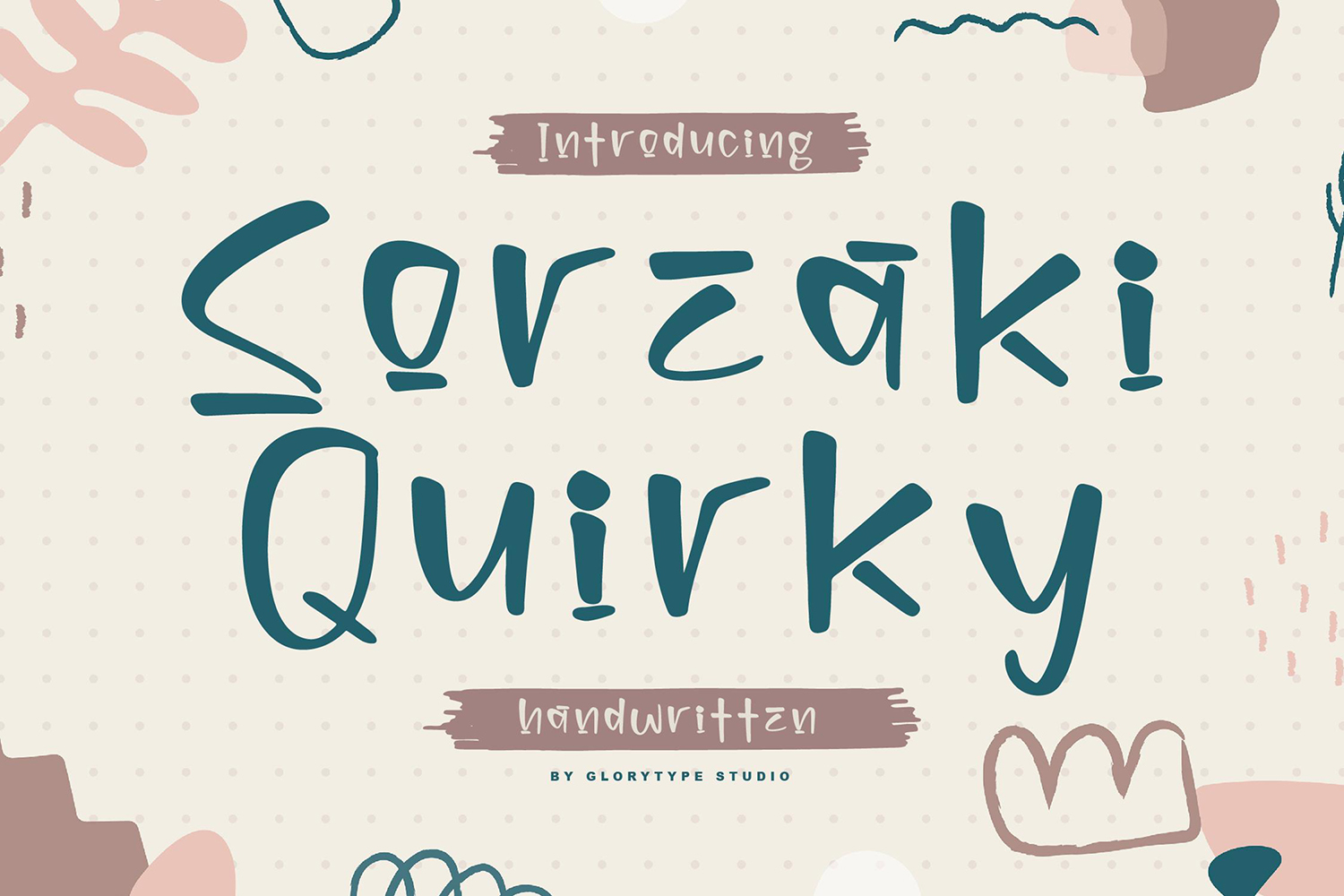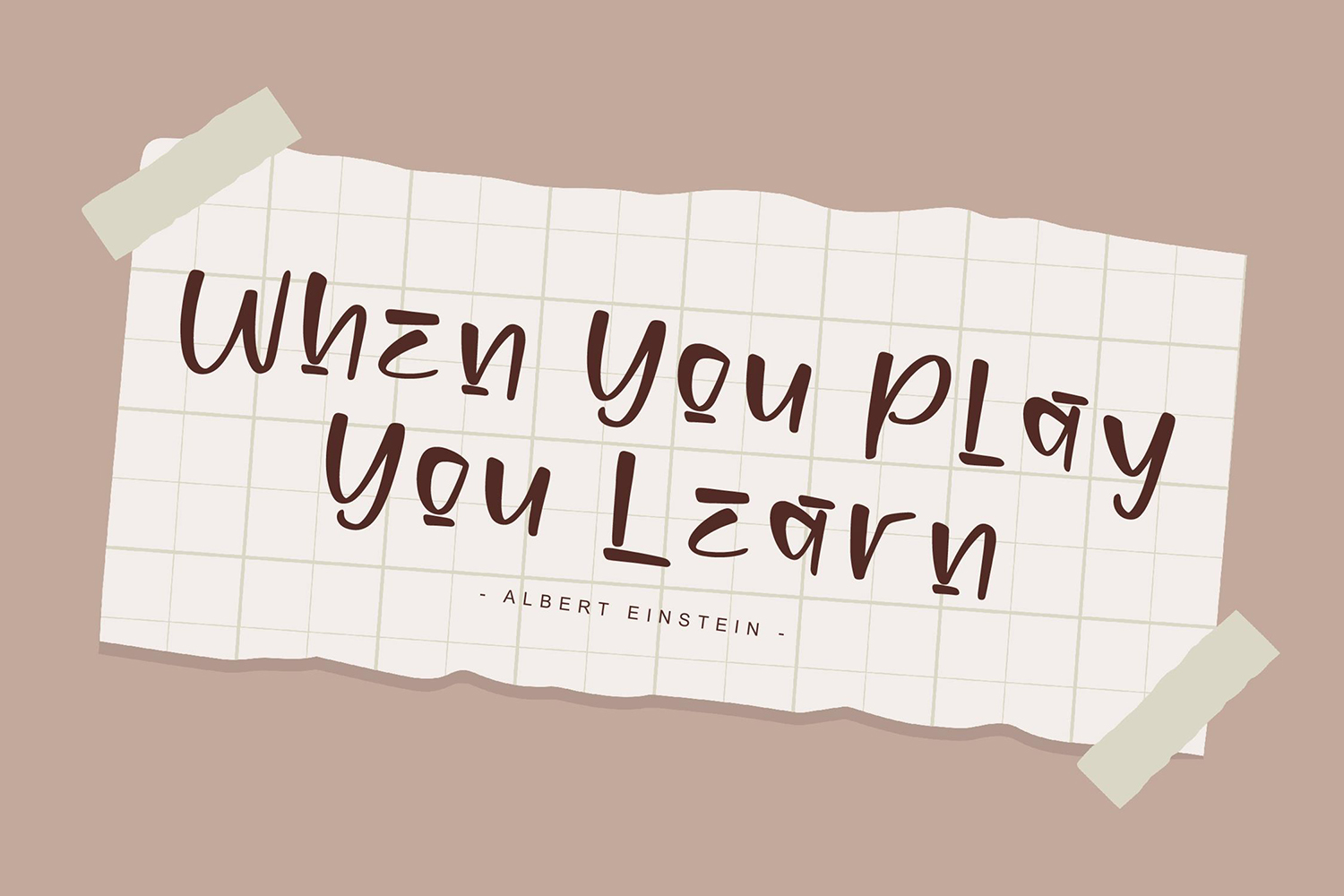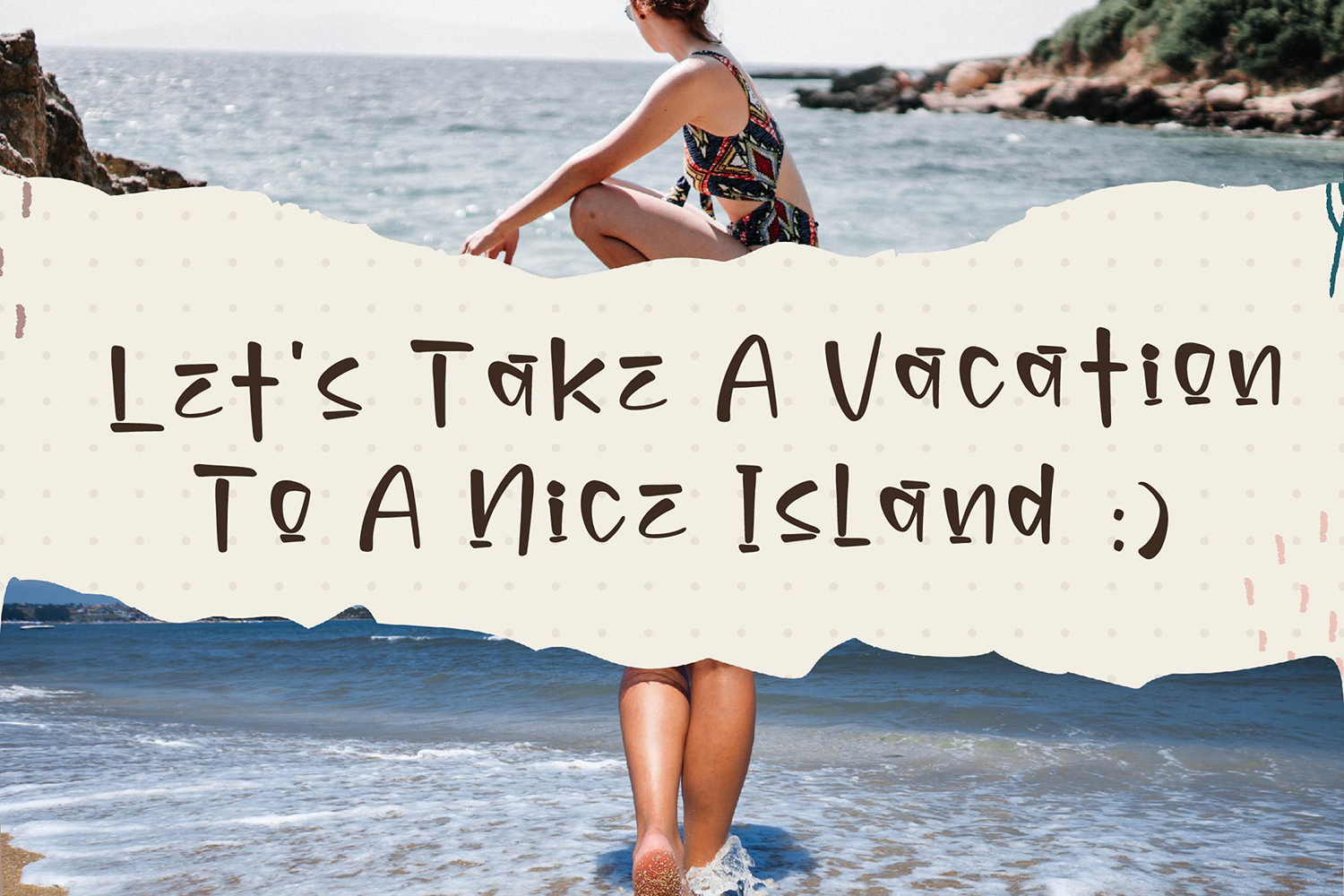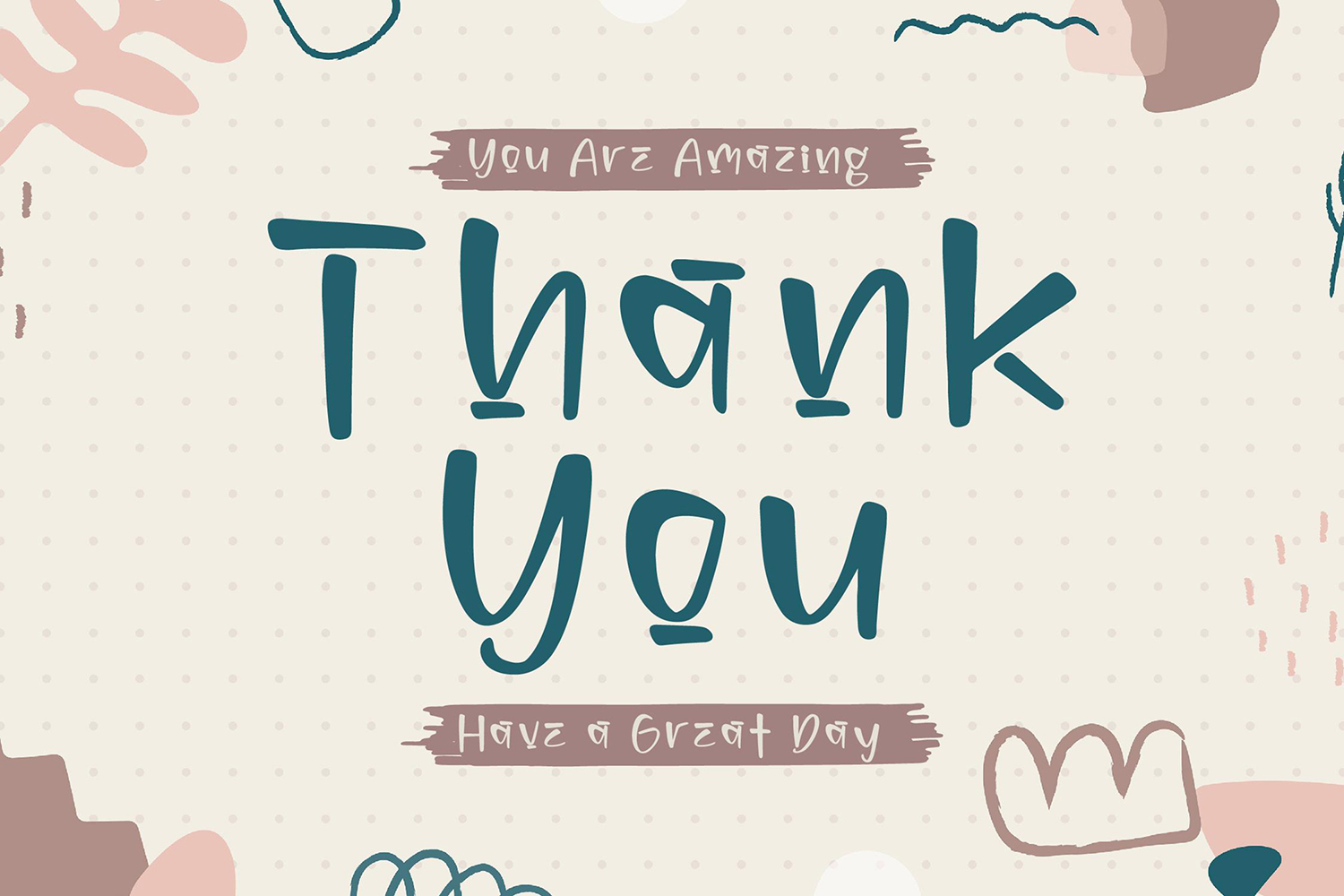
Soreaki Free Font
Soreaki Free Font is an incredibly quirky and sweet display font. Whether you use it for cartoon-related designs, children’s games, or just any creation that requires a lovely touch, this font will be an amazing choice.